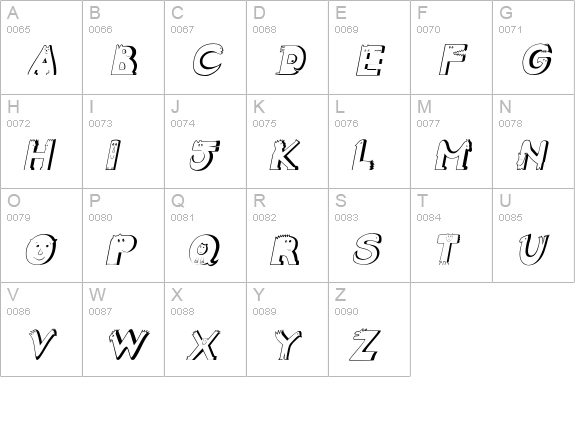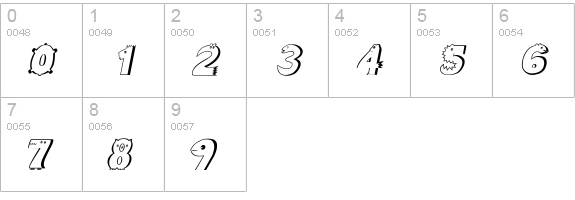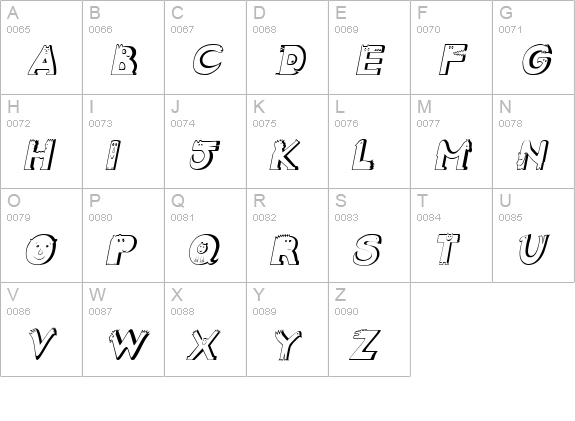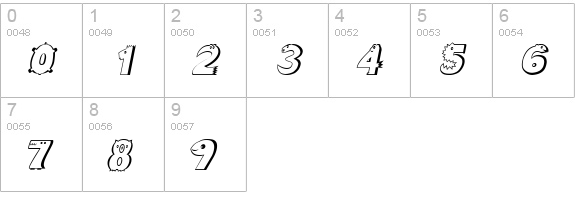
Crazy Creatures Italic is a distinctive, italic variant in the Crazy typeface family \xE2\x80\x94 well suited to design and typography projects.
Introducing Crazy Creatures Italic font, a whimsical and playful typeface that will bring a touch of fun to your projects. This unique font features quirky, hand-drawn characters with a hint of mischief, making it perfect for adding a touch of personality to your designs. Whether you're working on invitations, posters, or branding materials, Crazy Creatures Italic font will help your creations stand out. The best part? Crazy Creatures Italic font is completely free to download at FontsMarket.com. So go ahead and unleash your creativity with this charming and eye-catching typeface. Add a dose of fun to your designs today with Crazy Creatures Italic font!